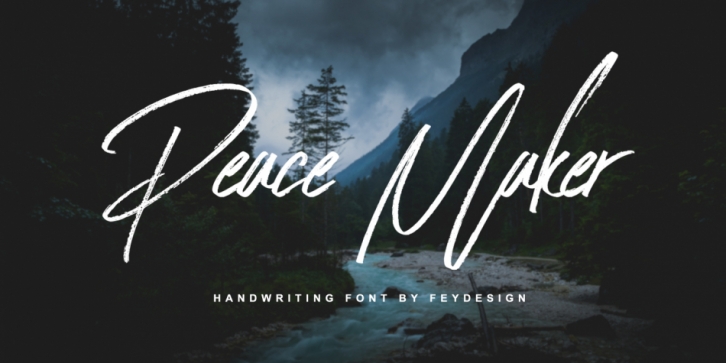
Peace Maker is a dingbat and modern calligraphy font family. This typeface has three styles and was published by feydesign.
Peace Maker is Dry Brush Script Font with handletter style. Suitable for design, element design, wedding, event, t-shirt, logo, badges, sticker, and awesome work, etc…
Peace Maker Regular·
Peace Maker Alt·